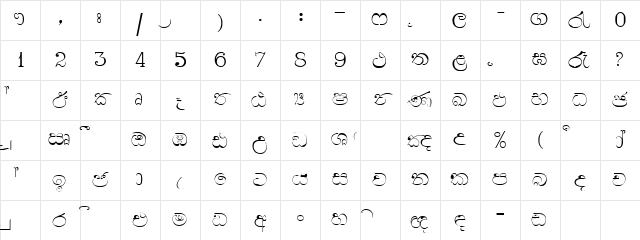
Sinhala_Light Plain
Design Context for Sinhala_Light
Sinhala_Light is a composed and adaptable typeface that performs quietly and consistently across a wide range of design contexts. Its slender proportions lend an understated elegance to any composition.